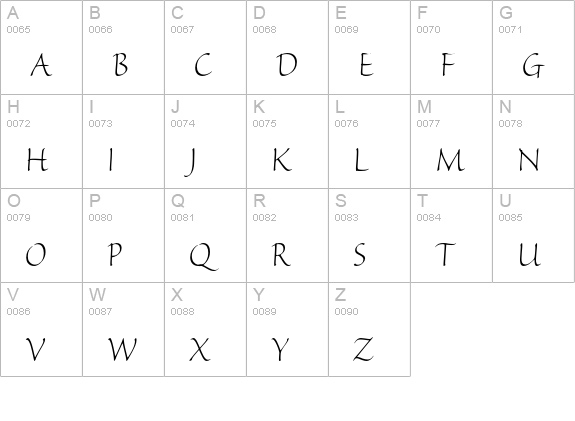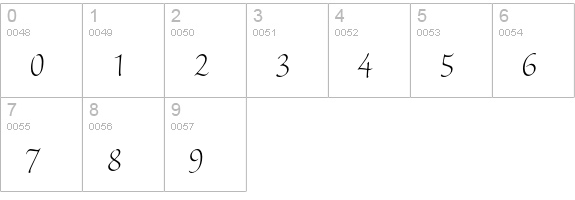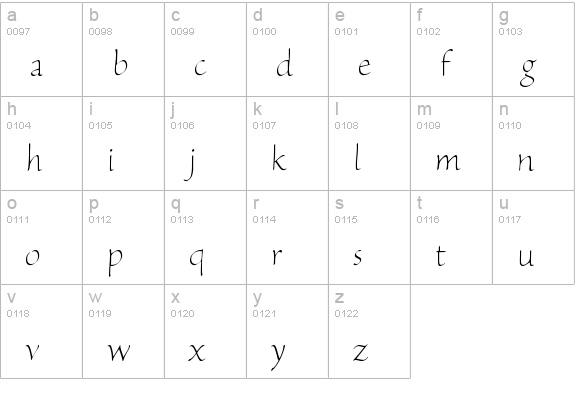
Sanvito Pro Light Display is a refined, elegant variant in the Sanvito typeface family \xE2\x80\x94 well suited to elegant body text, refined sub-headings, and luxury branding.
Sanvito Pro Light Display font is a sophisticated and elegant typeface that exudes a sense of modernity and refinement. With its clean lines and balanced proportions, this font is perfect for creating eye-catching headlines, titles, and logos that demand attention. The Sanvito Pro Light Display font is designed with utmost precision and attention to detail, ensuring legibility even at smaller sizes. Its delicate strokes and graceful curves make it a versatile choice for a wide range of design projects, from print materials to digital media. This font is available in a light weight, giving it a subtle and airy feel that adds a touch of sophistication to any design. The thin strokes and generous spacing make it ideal for display purposes, allowing it to stand out and make a statement. The best part is that Sanvito Pro Light Display font is free to download at FontsMarket.com. This means that you can enjoy the elegance and versatility of this font without having to invest any money. It is a fantastic opportunity for designers and creatives to access a high-quality typeface that can elevate their work to new heights. Whether you're working on a branding project, a magazine layout, or a website design, Sanvito Pro Light Display font is the perfect choice to add a touch of class and sophistication. Its clean and modern aesthetic will captivate your audience and leave a lasting impression. Don't miss out on the opportunity to enhance your designs with the Sanvito Pro Light Display font. Download it for free at FontsMarket.com and unlock a world of creativity and possibilities.